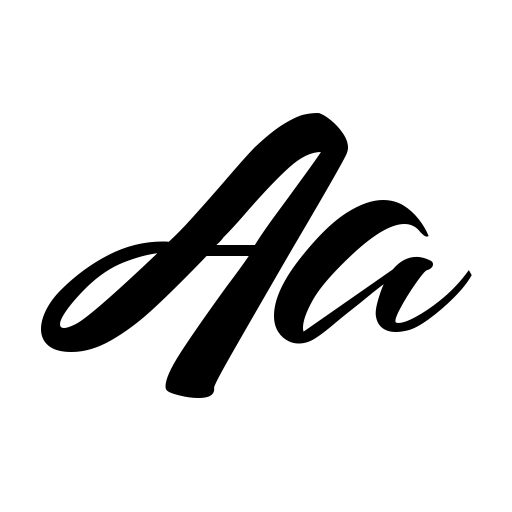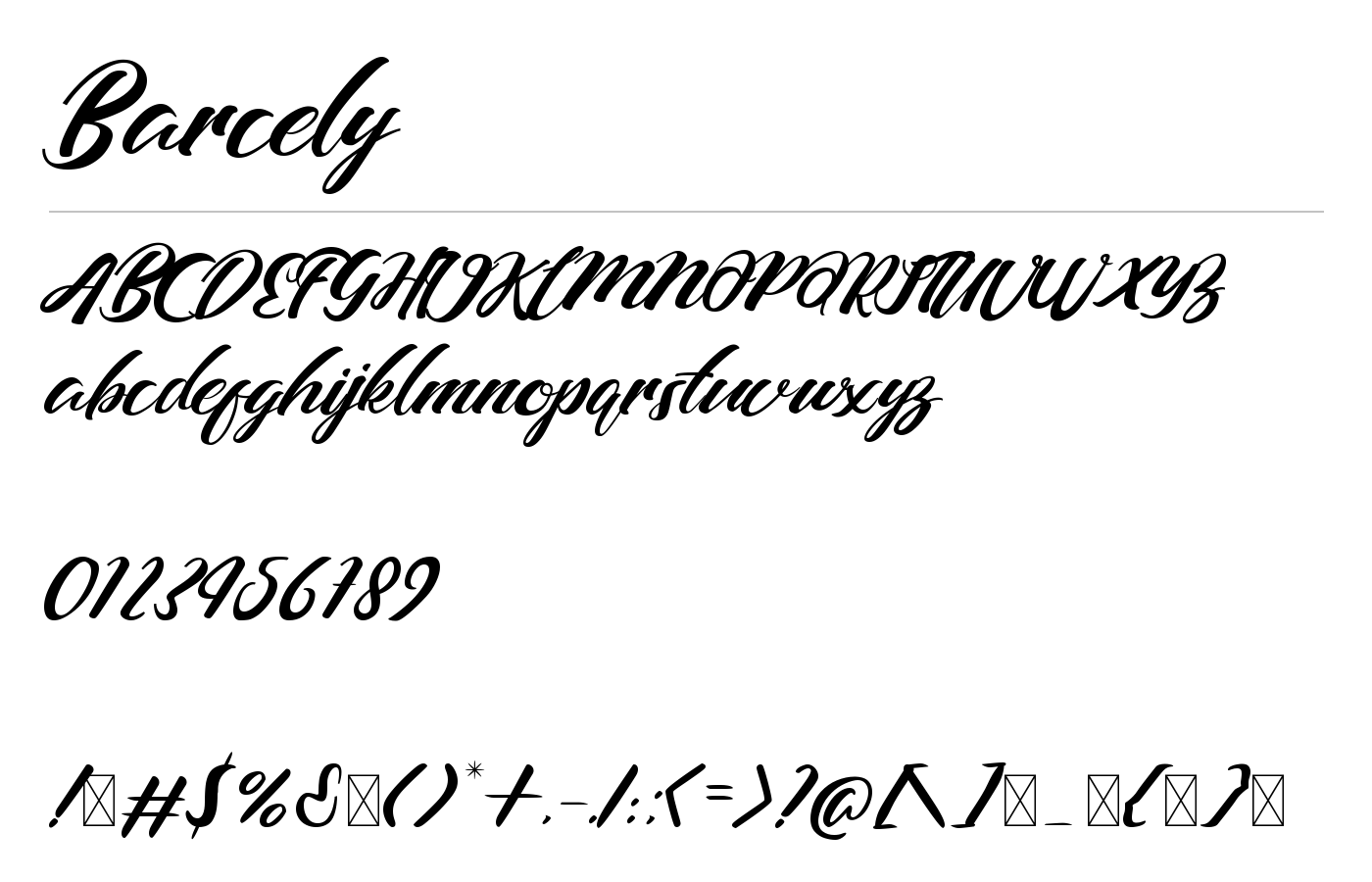
Barcely is an elegant script font with smooth, flowing strokes that offer a luxurious and modern feel. Its medium weight and moderate contrast create a refined yet approachable style, perfect for fashion branding, invitations, and stylish headlines. With its graceful letterforms and natural cursive flow, Barcely adds a touch of sophistication to any design project.
Barcely Font